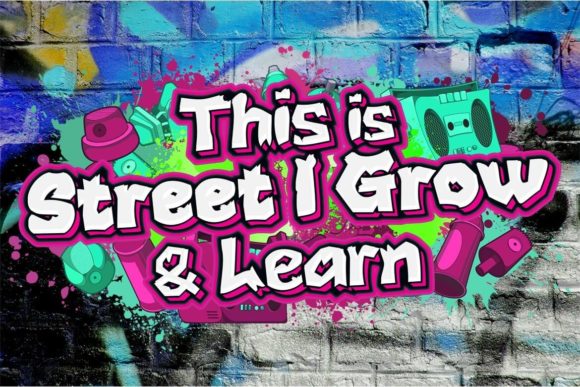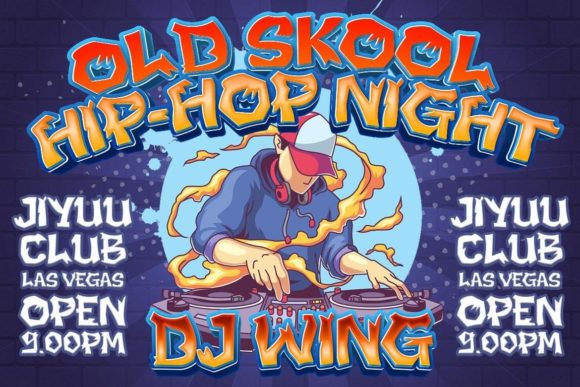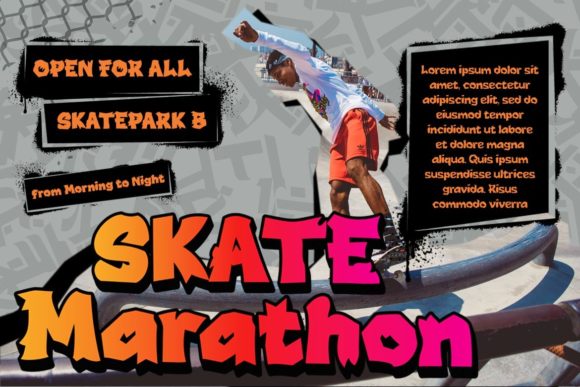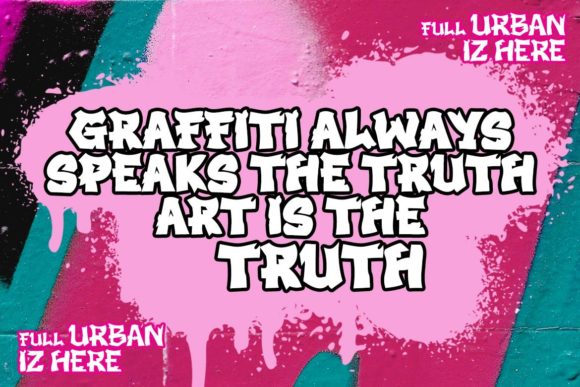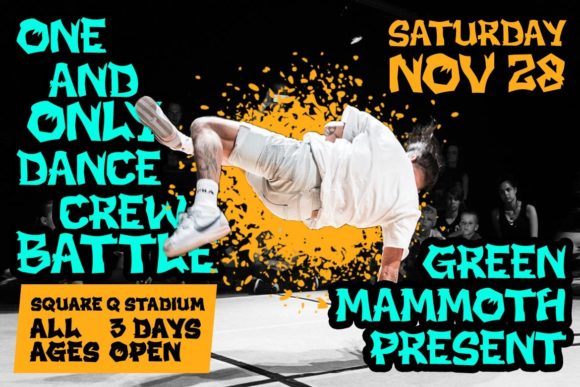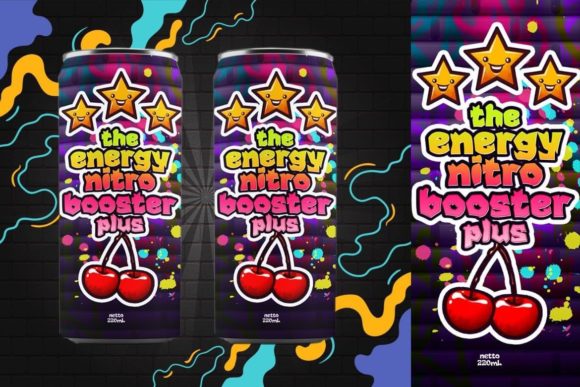
Unleash Your Creativity with Bekorg Font: The Ultimate Graffiti-Style Typeface
Are you tired of using the same old fonts for your designs? Do you want to add a touch of edginess and uniqueness to your projects? Look no further than Bekorg Font, a graffiti-themed typeface that’s sure to take your designs to the next level. With its unusual and weird shape, Bekorg is perfect for designers and crafters who want to create something truly remarkable.
What is Bekorg Font?
Bekorg Font is a graffiti-style font that’s designed to add a bold and edgy touch to your designs. This font is perfect for product logos, poster titles, headlines, packaging, film titles, logotypes, and more. Its unique shape and style make it stand out from other fonts, ensuring that your designs will grab attention and leave a lasting impression.
Key Features of Bekorg Font
- Graffiti-themed design: Bekorg Font has a distinctive graffiti-style design that’s perfect for adding an edgy touch to your projects.
- Unusual and weird shape: The font’s unusual shape sets it apart from other fonts, making it perfect for designers who want to create something unique.
- Versatile: Bekorg Font can be used for a wide range of projects, from product logos and poster titles to headlines, packaging, and more.
- Trendy and modern: The font’s modern and trendy design makes it perfect for designers who want to create contemporary and stylish designs.
Why Use Bekorg Font?
There are many reasons why Bekorg Font is a great choice for designers and crafters. Here are just a few:
- Add a touch of edginess: Bekorg Font’s graffiti-style design adds a bold and edgy touch to your designs, making them stand out from the crowd.
- Create unique designs: The font’s unusual shape and style ensure that your designs will be one-of-a-kind and truly remarkable.
- Perfect for graffiti designs: Bekorg Font is perfect for designers who want to create trendy graffiti designs, from street art to urban-inspired projects.
Tips and Tricks for Using Bekorg Font
Here are some tips and tricks for getting the most out of Bekorg Font:
- Experiment with colors: Bekorg Font looks great in bold, bright colors. Experiment with different colors to add an extra pop to your designs.
- Mix and match: Combine Bekorg Font with other fonts to create a unique and eye-catching design.
- Pay attention to spacing: Make sure to adjust the spacing between letters and words to ensure that your design looks clean and easy to read.